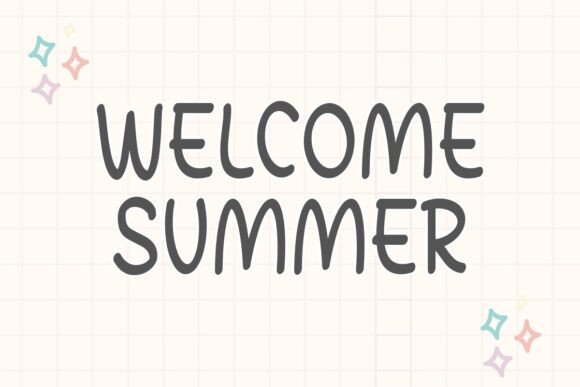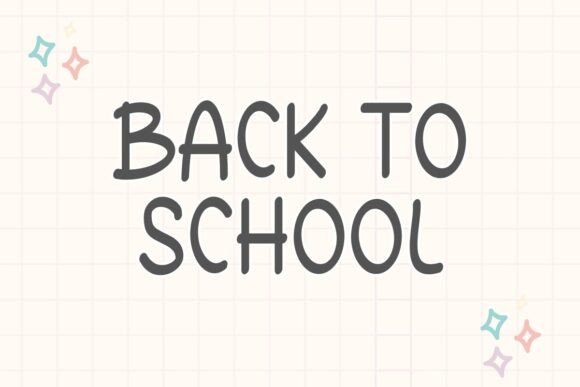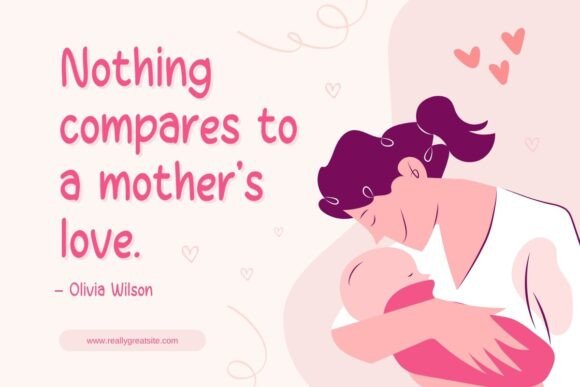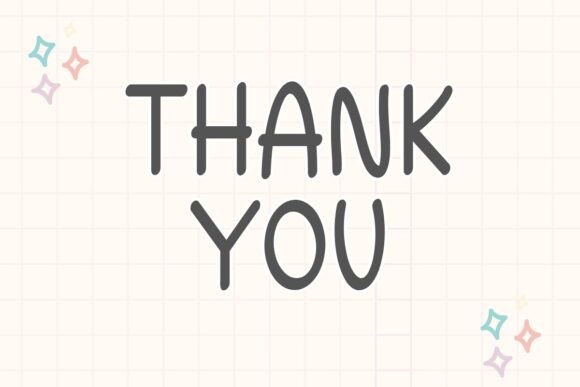
Introducing Designer Farmhouse: The Ultimate Font for Clarity and Readability
Are you a designer or crafter looking for a font that embodies simplicity, modernity, and versatility? Look no further than Designer Farmhouse, a neat and casual sans-serif font designed specifically for clarity and readability. In this article, we’ll dive into the world of Designer Farmhouse, exploring its features, benefits, and uses, and why it’s an excellent choice for your next design project.
The Story Behind Designer Farmhouse
Designer Farmhouse is a carefully crafted font that combines clean lines, balanced proportions, and a modern appeal. Its design is rooted in the principles of simplicity and legibility, making it an ideal choice for a wide range of applications, from digital interfaces to print materials. Whether you’re designing a website, brochure, or social media graphics, Designer Farmhouse is the perfect companion to help you communicate your message effectively.
Key Features of Designer Farmhouse
• Clean Lines: Designer Farmhouse boasts clean lines that give it a crisp and modern look, perfect for designs that require a touch of sophistication.
• Balanced Proportions: The font’s balanced proportions ensure that it’s easy to read, even at smaller sizes, making it suitable for body text and headings.
• Versatility: Designer Farmhouse is a versatile font that can be used in various design projects, from digital interfaces to print materials, such as brochures, posters, and business cards.
• Simplicity: The font’s simplicity makes it easy to pair with other fonts, allowing you to create unique and harmonious typography combinations.
Benefits of Using Designer Farmhouse
So, why choose Designer Farmhouse for your next design project? Here are just a few benefits of using this fantastic font:
• Improved Readability: Designer Farmhouse is designed for clarity and readability, ensuring that your message is communicated effectively to your audience.
• Modern Appeal: The font’s modern appeal makes it perfect for designs that require a fresh and contemporary look.
• Time-Saving: With Designer Farmhouse, you can save time and effort in choosing a font that works well across different platforms and devices.
• Professional Look: The font’s clean lines and balanced proportions give it a professional look that’s perfect for businesses, blogs, and personal brands.
Using Designer Farmhouse in Your Design Projects
Designer Farmhouse is an excellent choice for a wide range of design projects, including:
• Digital Interfaces: Use Designer Farmhouse for website designs, mobile apps, and social media graphics to create a modern and user-friendly interface.
• Print Materials: The font is perfect for print materials, such as brochures, posters, business cards, and flyers, where clarity and readability are essential.
• Branding and Identity: Designer Farmhouse can be used to create a consistent brand identity across different platforms and devices.
Tips for Getting the Most Out of Designer Farmhouse
Here are some tips to help you get the most out of Designer Farmhouse:
• Experiment with Font Sizes: Try different font sizes to find the perfect balance between readability and aesthetics.
• Pair with Other Fonts: Experiment with pairing Designer Farmhouse with other fonts to create unique and harmonious typography combinations.
• Use it Consistently: Use Designer Farmhouse consistently across different platforms and devices to create a cohesive brand identity.
Font Name Designer Farmhouse Font
Author Minimalist Eyes
In conclusion, Designer Farmhouse is an excellent choice for designers and crafters looking for a font that embodies simplicity, modernity, and versatility. With its clean lines, balanced proportions, and modern appeal, Designer Farmhouse is perfect for a wide range of design projects, from digital interfaces to print materials. By choosing Designer Farmhouse, you can improve readability, create a professional look, and save time and effort in your design projects.